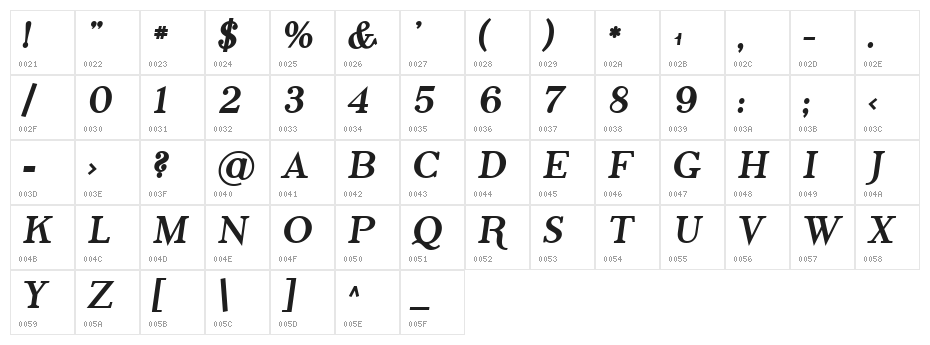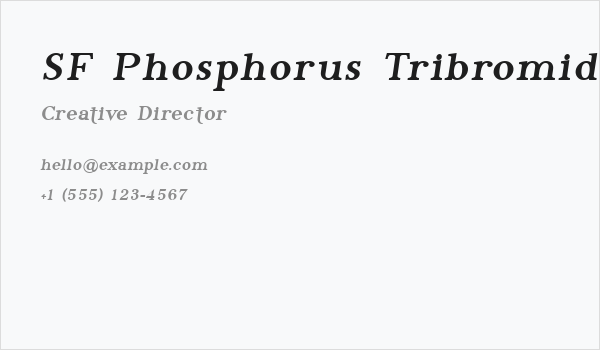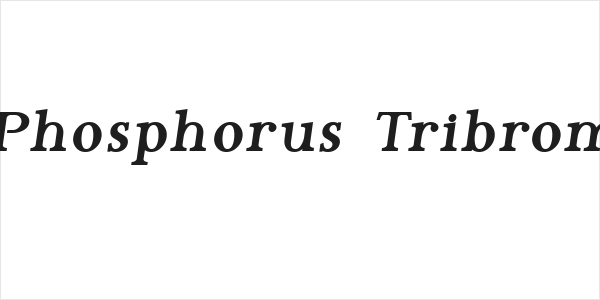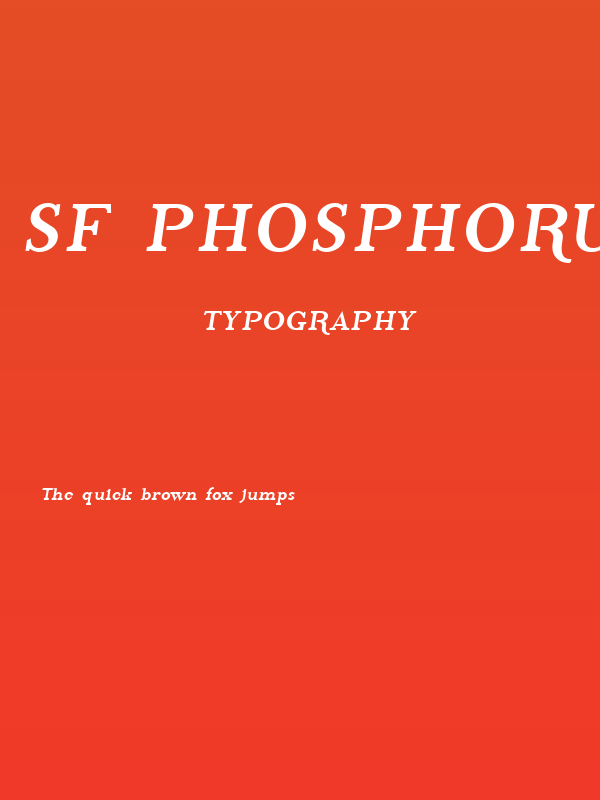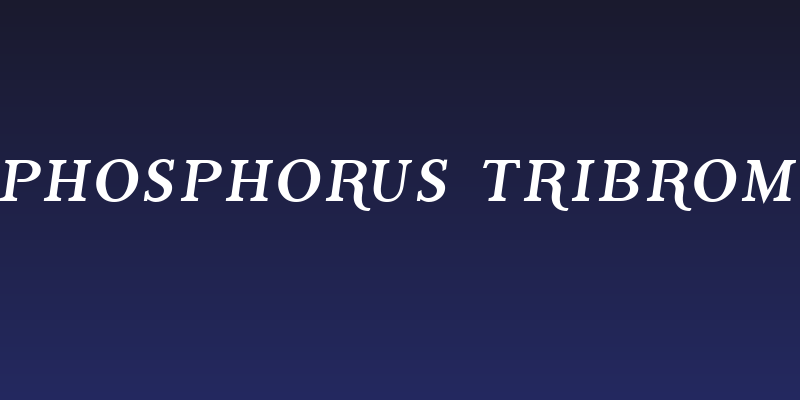
SF Phosphorus Tribromide Font
SF Phosphorus Tribromide Description
This font features a classic serif style with a slight italic slant, giving it an elegant and sophisticated appearance. The serifs are pronounced, adding a touch of formality and tradition. The uppercase letters are well-proportioned, with a consistent stroke width that enhances readability. The lowercase letters maintain a smooth flow, complementing the overall aesthetic. Numbers are clear and distinct, making them suitable for both text and numerical data. Special characters are well-integrated, ensuring versatility in various contexts. The font's design is timeless, making it suitable for a wide range of applications.